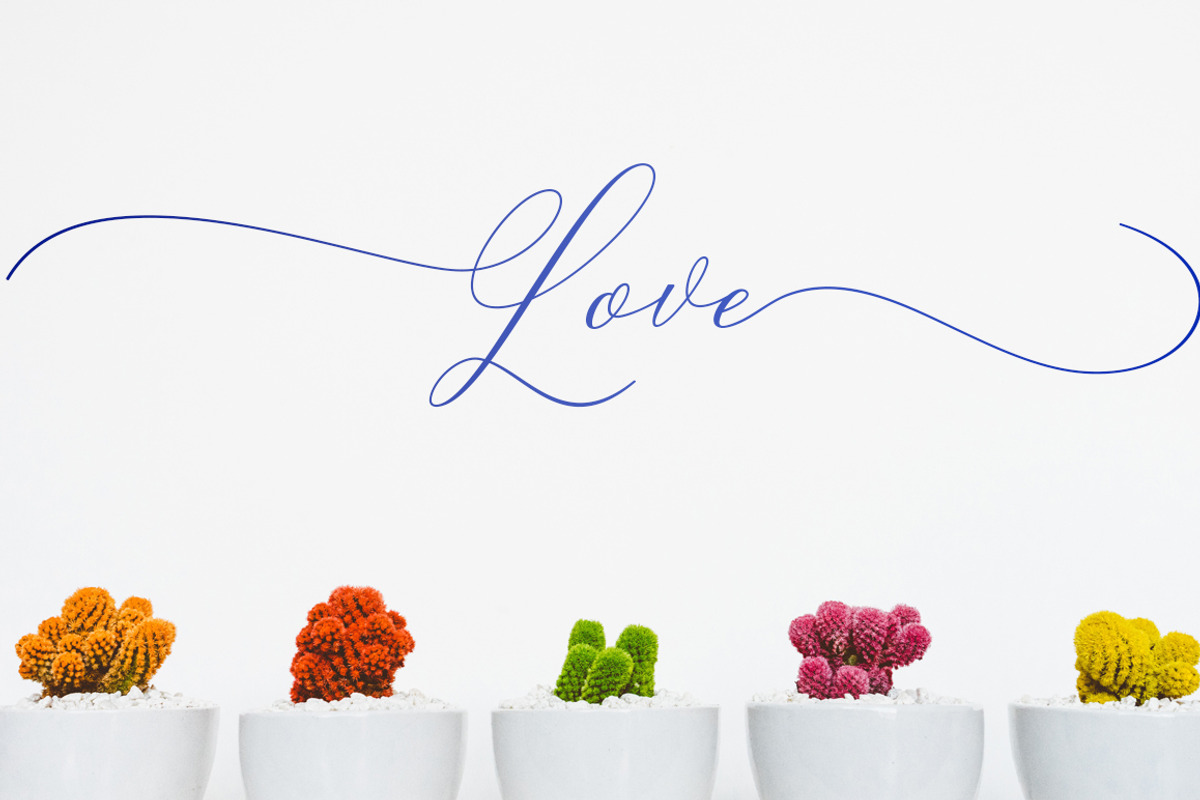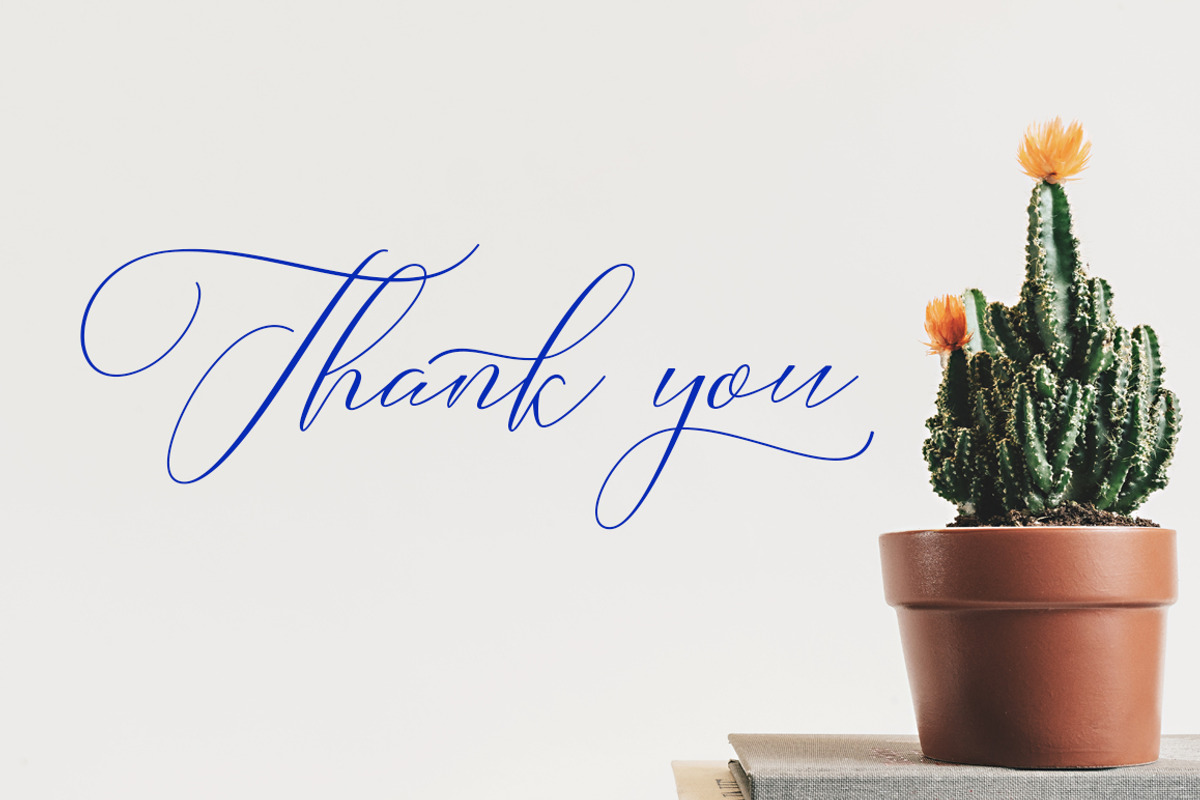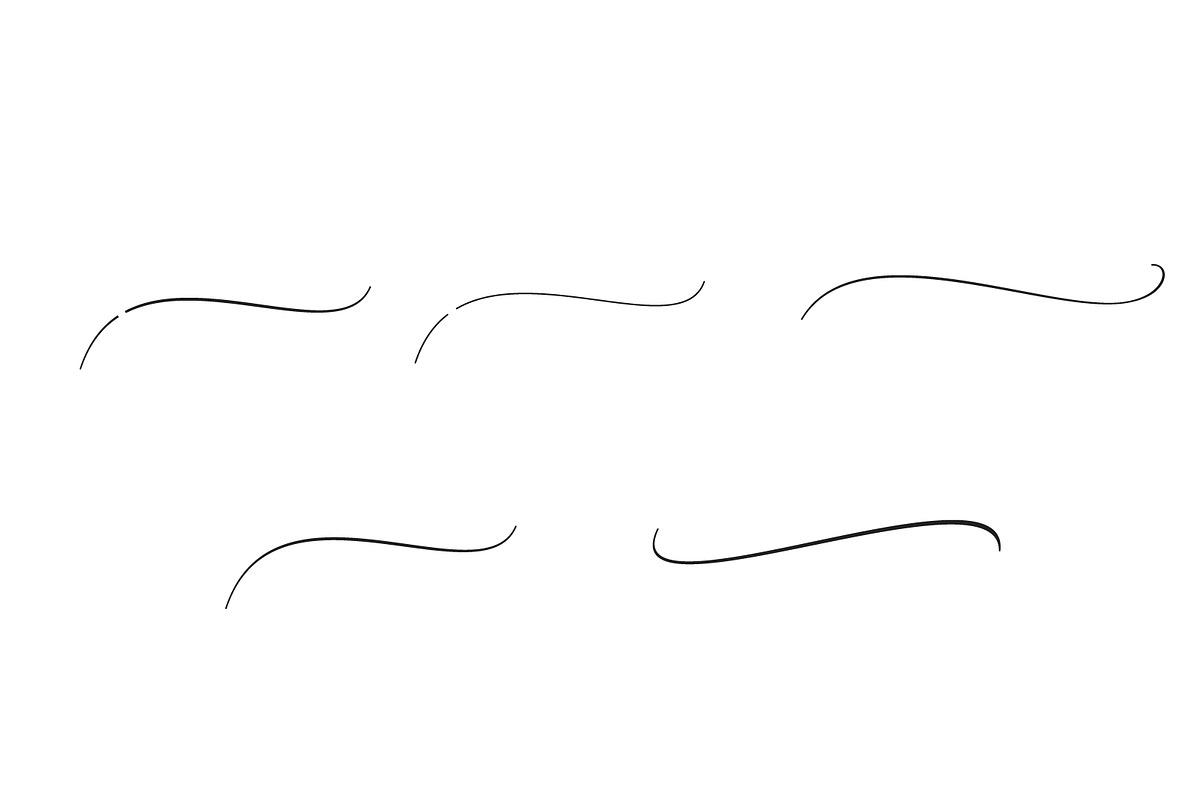
Camelia Calligraphy Modern
NEW ! Camelia Calligraphy Modern. It's an modern typeface. Camelia Script, including swashes, ligatures,Alternate and International support for most Western Languages is included. Camelia come with 471 glyphs